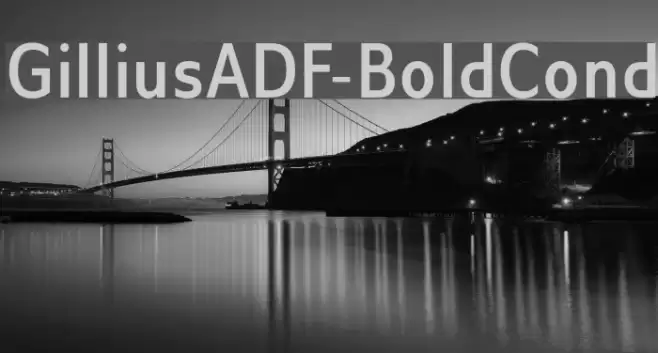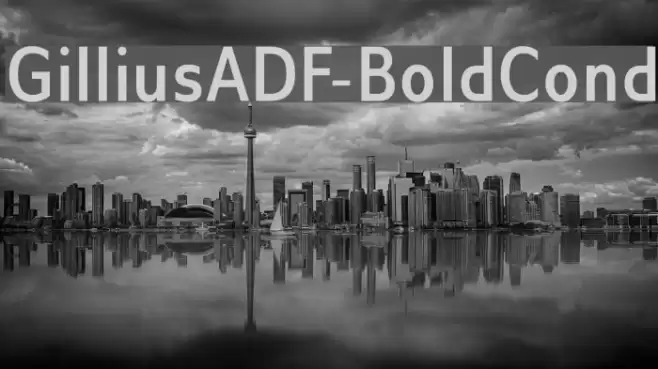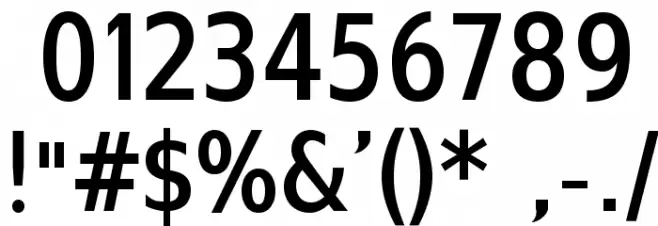
GilliusADF-BoldCond Font
GilliusADF-BoldCond Description
This typeface features a clean and modern sans-serif design with bold strokes that convey a sense of strength and clarity. The characters are well-defined with a consistent weight throughout, making it highly legible. The uppercase letters are slightly taller than the lowercase, providing a balanced and harmonious appearance. The numerals are clear and distinct, ensuring readability in various contexts. Special characters are well-integrated, maintaining the overall aesthetic of the typeface. The condensed width allows for efficient use of space, making it suitable for a variety of design applications.
A bold, modern sans-serif font with a condensed width and strong legibility from Uncategorized fonts.
- Proposed Projects: Ideal for branding, headlines, posters, and digital interfaces where clarity and impact are essential.
- Use Case: Headlines, Logos, Digital interfaces